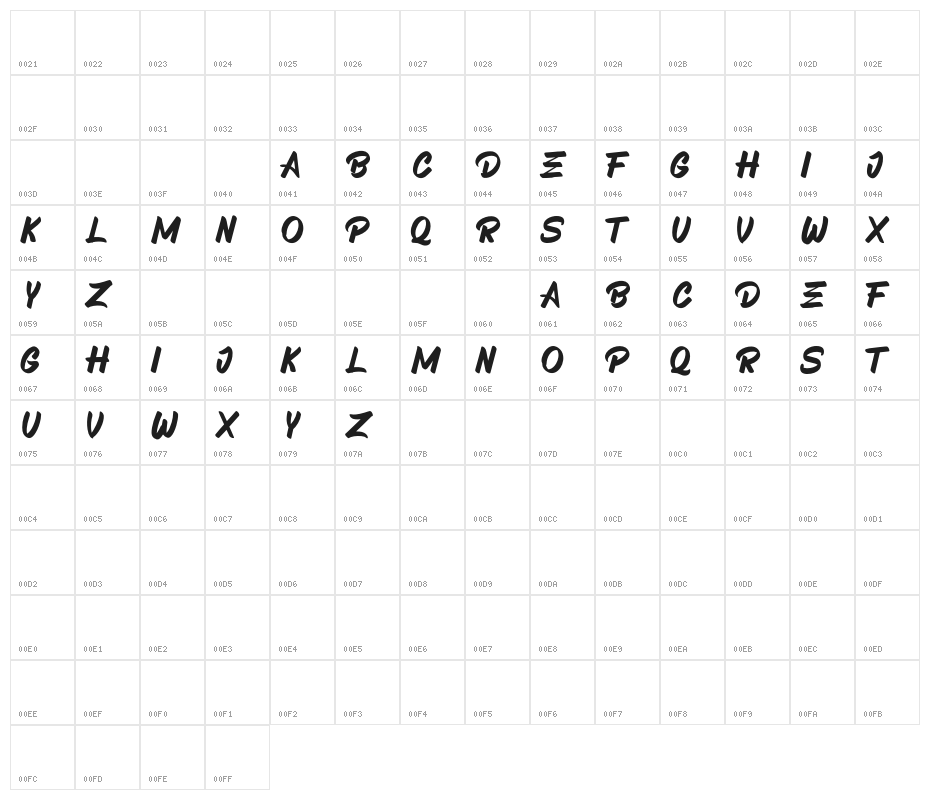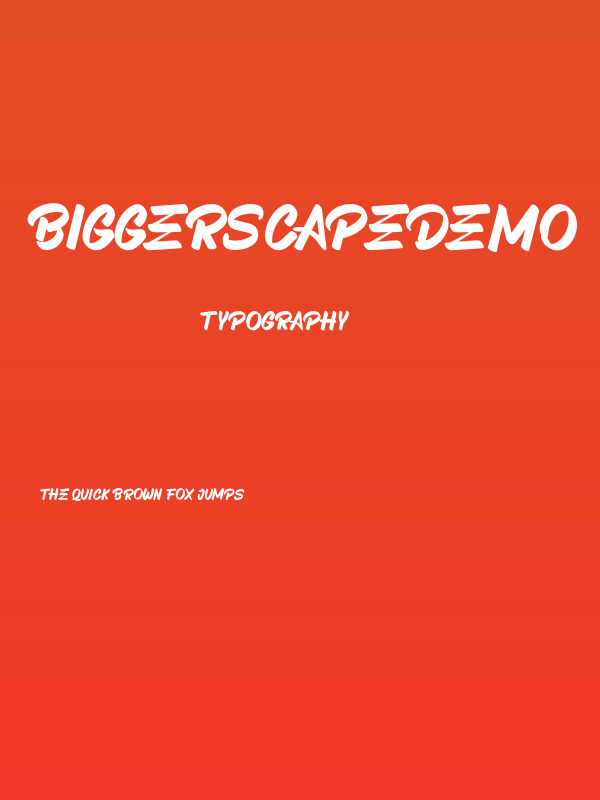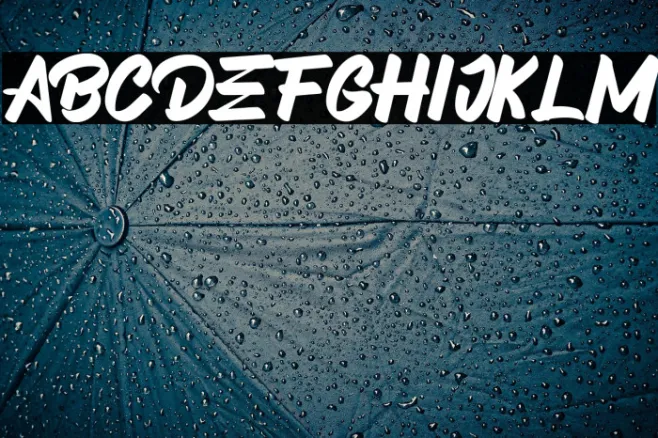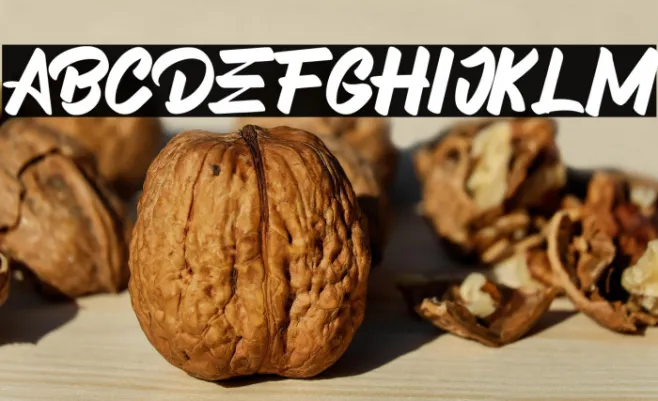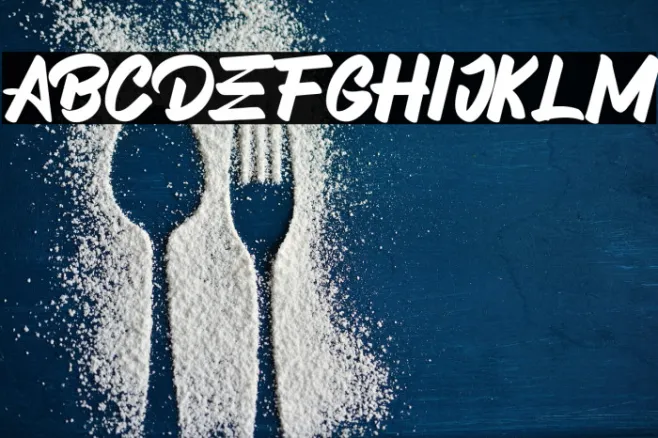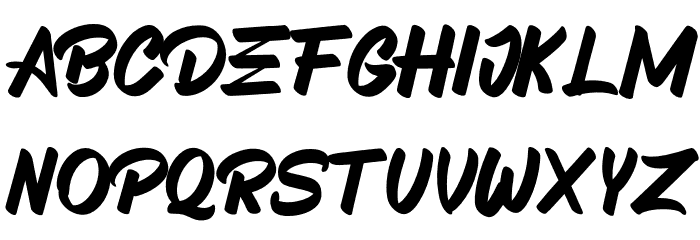
BIGGERSCAPEDemo Font
BIGGERSCAPEDemo Description
This font features a bold, energetic style with a handwritten aesthetic. The characters are slightly slanted, giving a sense of movement and dynamism. The strokes are thick and consistent, providing a strong visual impact. The overall appearance is playful yet assertive, making it ideal for attention-grabbing designs. The uppercase letters are particularly prominent, with a smooth flow between each character. This font is well-suited for creative projects that require a personal touch.
| Proposed Projects | Ideal for posters, branding, merchandise, and social media graphics. |